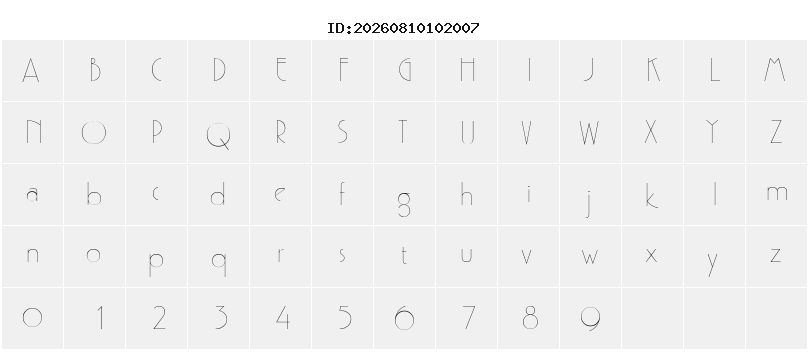
P700-Deco Preview
• Font Name: P700-Deco
• Designer: SoftMaker Software GmbH
• Manufacturer: SoftMaker Software GmbH
About P700-Deco.ttf
P700-Deco.ttf is a modern, elegant sans-serif font designed for ultimate readability and visual harmony. Perfect for branding, headlines, web design, and print materials.